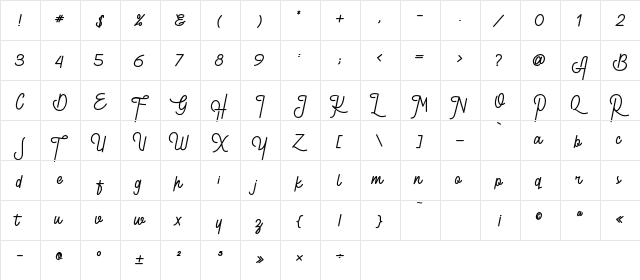
Guthers Textured_DEMO Regular
| Designer | Omotu Studio |
Design Context for Guthers Textured_DEMO Typeface
Guthers Textured_DEMO embraces imperfection — its rough, textured character adds raw authenticity to designs that want to feel lived-in and unconventional.
Suited to punk-influenced zines, underground music branding, streetwear, and raw, anti-corporate design.